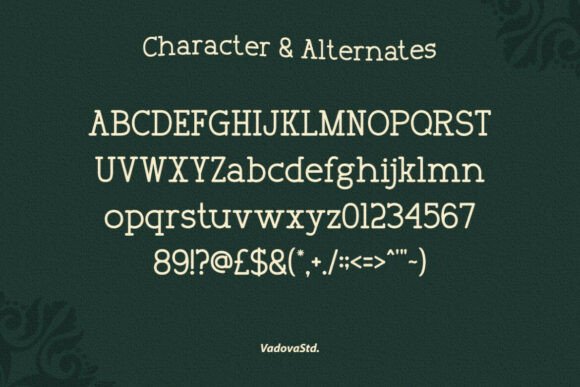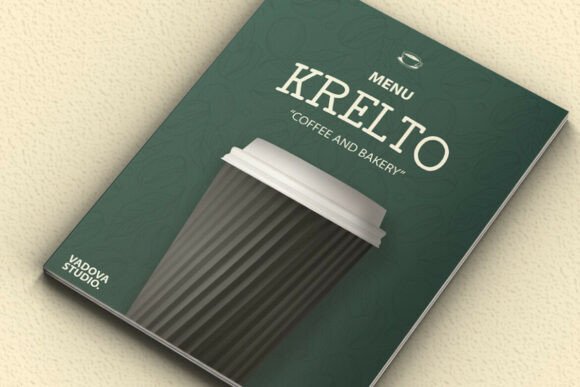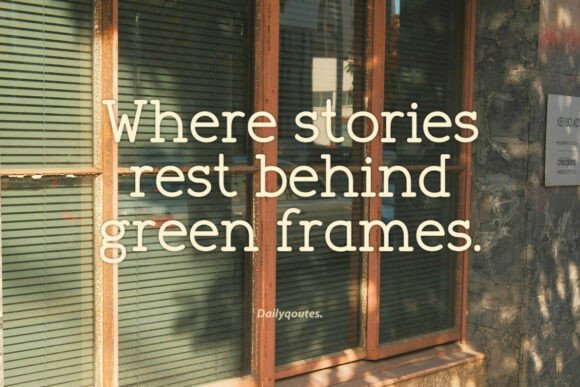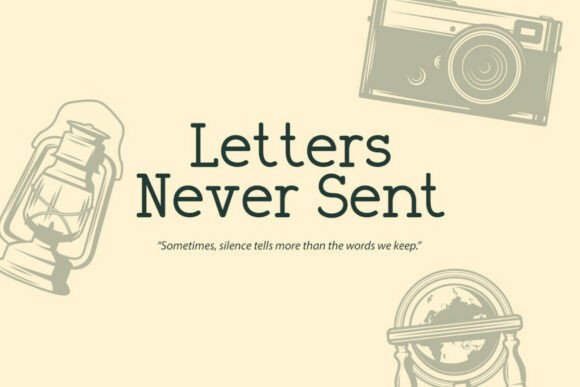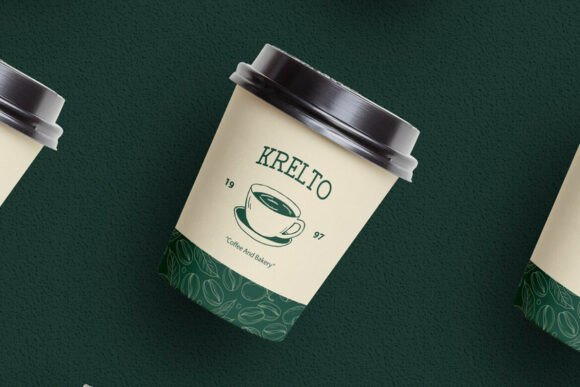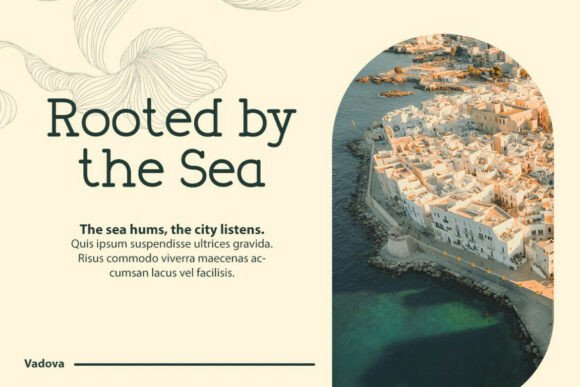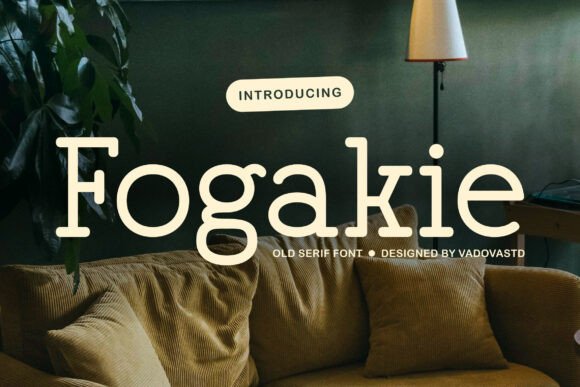
Discover the Timeless Charm of Fogakie Font: A Perfect Blend of Classic and Modern
In the world of typography, fonts play a crucial role in conveying the tone and personality of a brand, product, or message. For designers and crafters looking for a typeface that exudes warmth, nostalgia, and sophistication, Fogakie Font is an excellent choice. This old-style serif font boasts a unique blend of classic charm and modern refinement, making it perfect for a wide range of design applications.
The Characteristics of Fogakie Font
Fogakie Font is characterized by its rounded terminals and slightly condensed form, which give it a friendly yet classic voice. Its subtle modern refinement sets it apart from traditional serif fonts, making it an excellent choice for designers looking for a typeface that is both timeless and contemporary. The font’s warm and nostalgic character makes it perfect for conveying trust, tradition, and timeless charm.
Fogakie Font is a versatile typeface that can be used in a variety of design applications. Whether you’re designing editorial spreads, book covers, quote graphics, or lifestyle branding, Fogakie brings a sense of calm and authenticity to your work. Its classic and sophisticated voice makes it perfect for:
- Editorial design: Fogakie Font is ideal for magazine and newspaper design, adding a touch of elegance and sophistication to your editorial spreads.
- Book covers: The font’s classic and timeless charm makes it perfect for book covers, especially for fiction, non-fiction, and historical books.
- Quote graphics: Fogakie’s subtle modern refinement and classic voice make it an excellent choice for quote graphics, adding a touch of sophistication and elegance to your designs.
- Lifestyle branding: The font’s warm and nostalgic character makes it perfect for lifestyle branding, especially for brands that want to convey a sense of tradition and trust.
Technical Features of Fogakie Font
Fogakie Font comes with a range of technical features that make it a versatile and practical choice for designers. Some of its key features include:
- Alternate characters: The font supports alternates, allowing you to add variation and personality to your text.
- Punctuation range: Fogakie Font comes with a full range of punctuation, making it suitable for use in both digital and print environments.
- Digital and print-friendly: The font works beautifully in both digital and print environments, offering quiet sophistication in every word.
Why Choose Fogakie Font?
With so many fonts available, why choose Fogakie Font? Here are just a few reasons why designers and crafters love this typeface:
- Unique blend of classic and modern: Fogakie Font offers a perfect blend of classic charm and modern refinement, making it perfect for designers looking for a typeface that is both timeless and contemporary.
- Versatile: The font is suitable for a wide range of design applications, from editorial design to lifestyle branding.
- Easy to read: Fogakie Font is designed to be easy to read, making it perfect for body text and long-form content.
- High-quality: The font is designed to high-quality standards, ensuring that it looks great in both digital and print environments.
In conclusion, Fogakie Font is a versatile and sophisticated typeface that is perfect for designers and crafters looking for a classic yet modern font. Its unique blend of old-style serif characteristics and subtle modern refinement makes it perfect for a wide range of design applications. With its technical features, including support for alternates and a full range of punctuation, Fogakie Font is a practical choice for designers. Whether you’re designing editorial spreads, book covers, quote graphics, or lifestyle branding, Fogakie Font is an excellent choice.